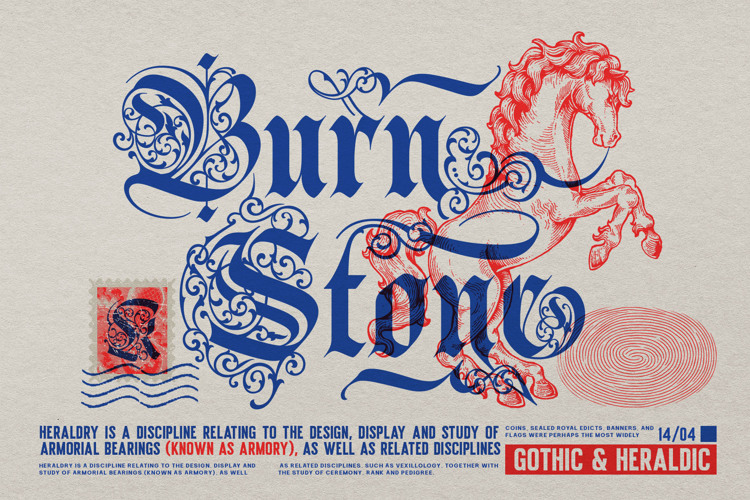
Black Nory Font
About Black Nory Font
Black Nory — Ornamental Blackletter Typeface
Transport your designs into the world of classic European elegance with Black Nory, a beautifully detailed blackletter typeface that draws inspiration from the majestic scripts of ancient manuscripts, engraved books, and heraldic prints. This typeface is a modern homage to the age of ink-drenched parchment and meticulous craftsmanship, blending bold gothic shapes with delicate ornamental artistry.